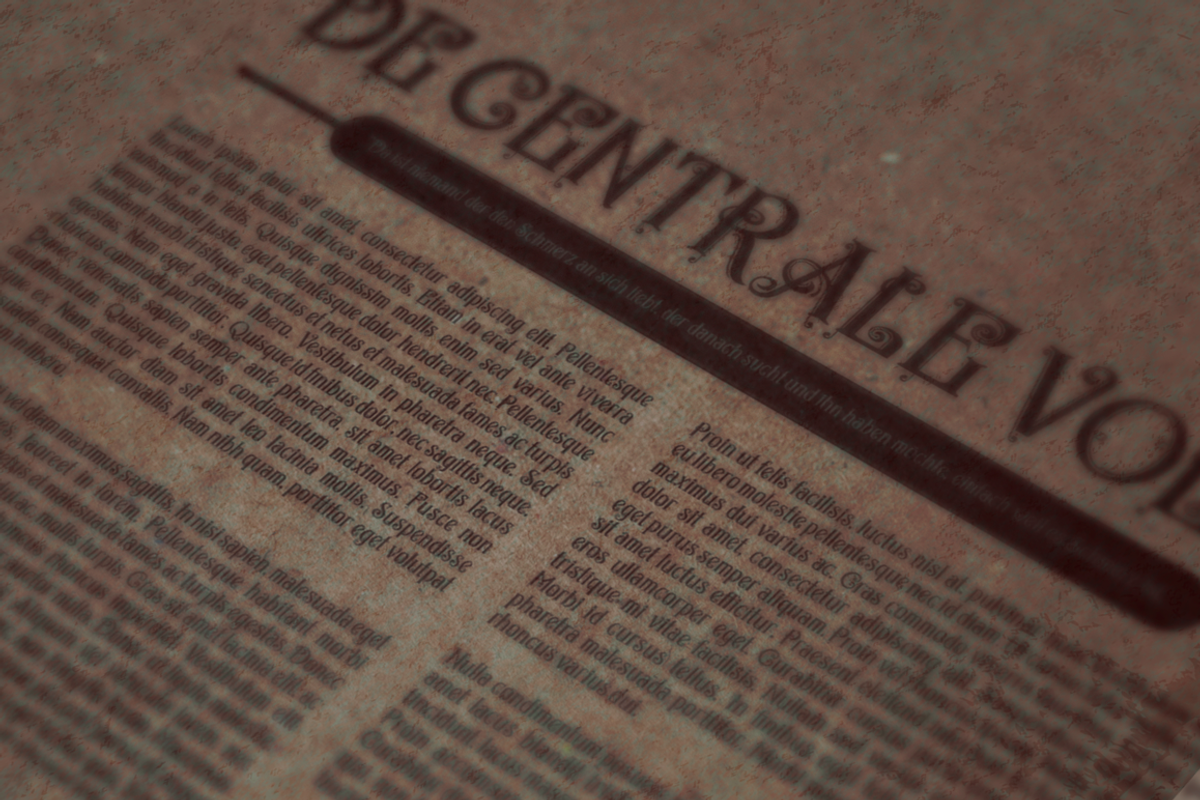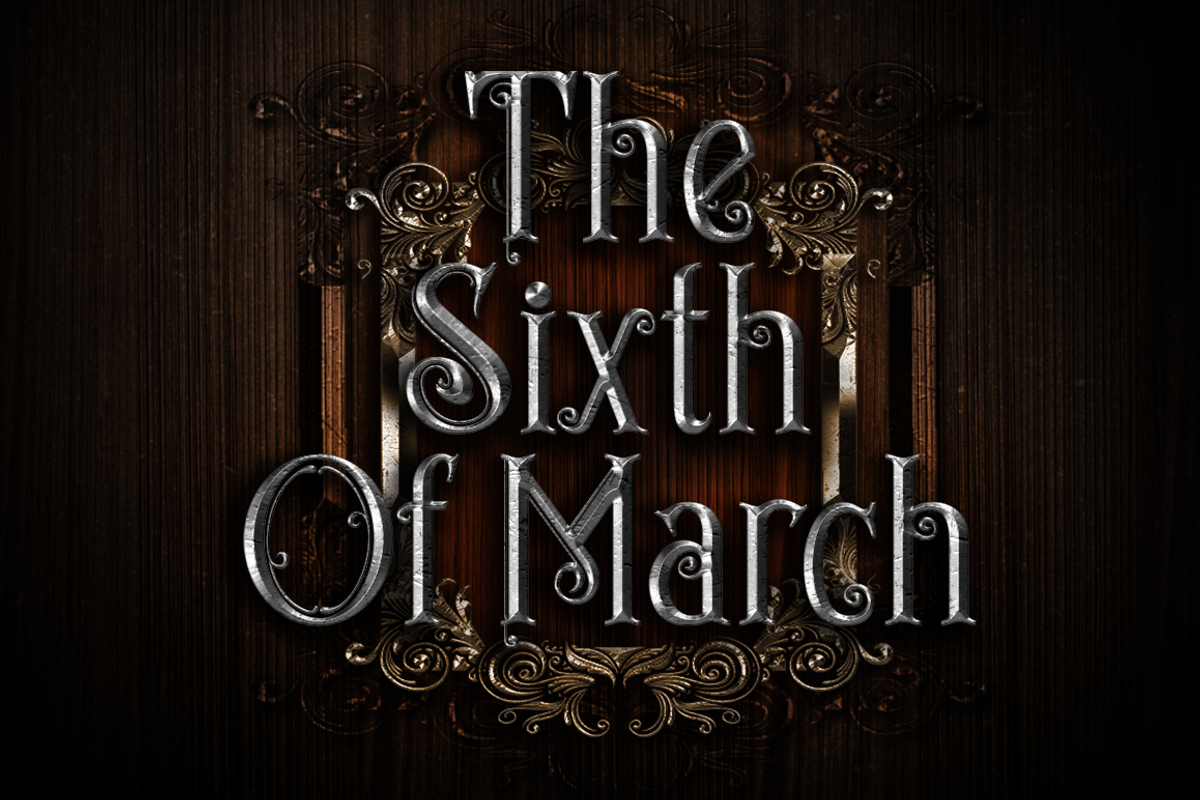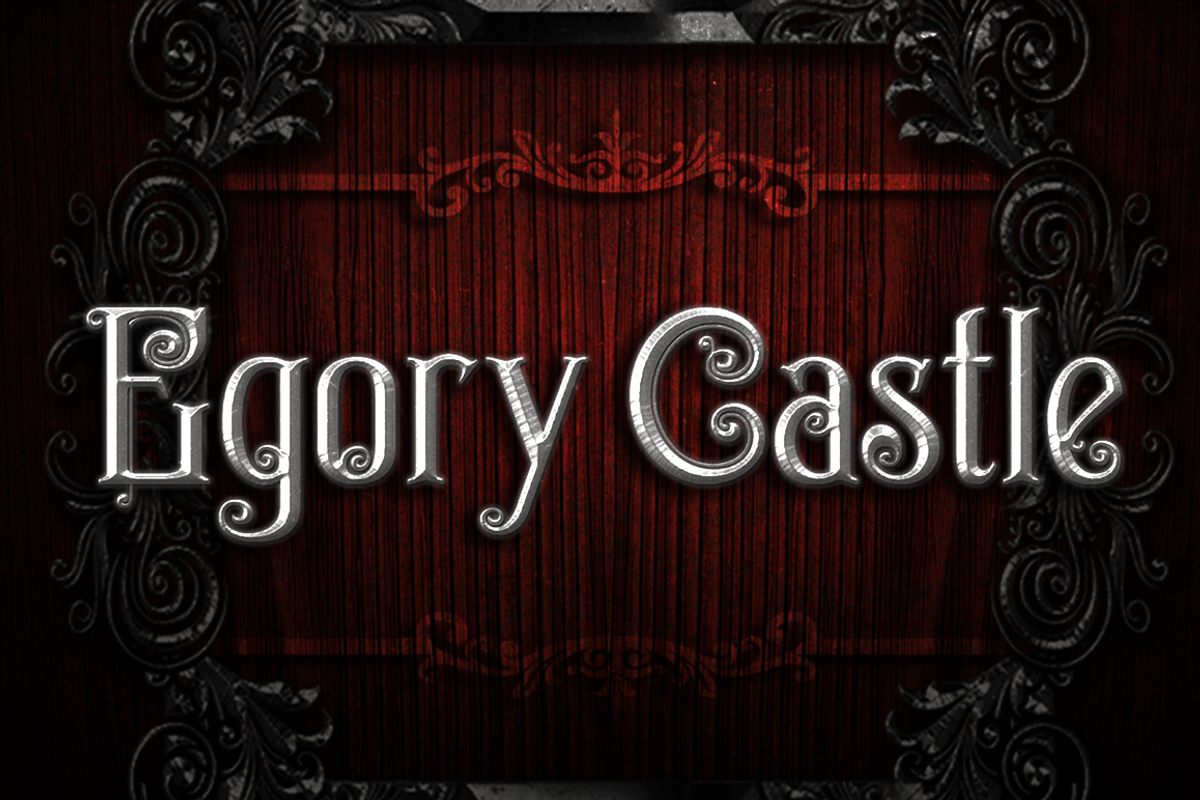
Egorycastle Typeface
Egorycastle Typeface by seventhimperium is a font selected for branding, posters, packaging, typography.
Why Egorycastle Typeface is worth a look
Egorycastle Typeface by seventhimperium fits naturally into Branding, posters, packaging, typography.